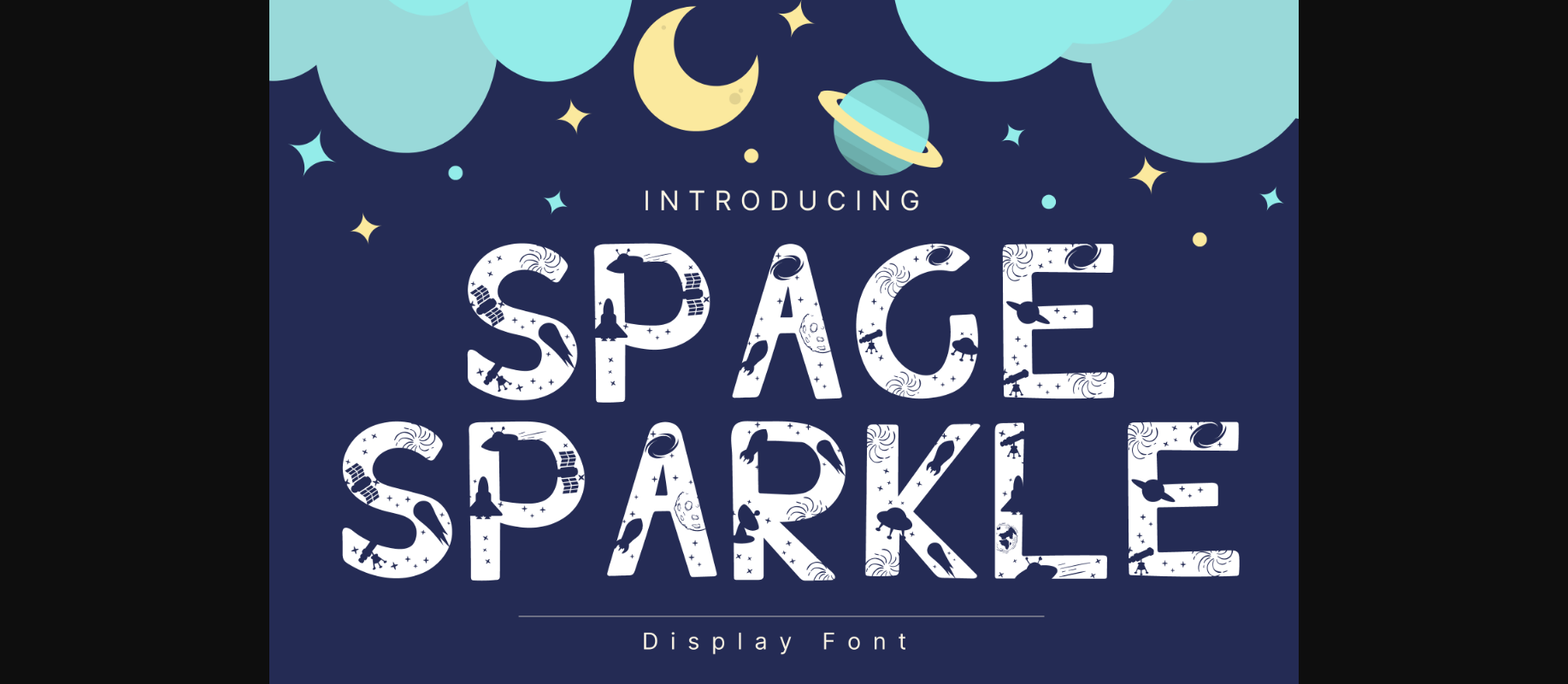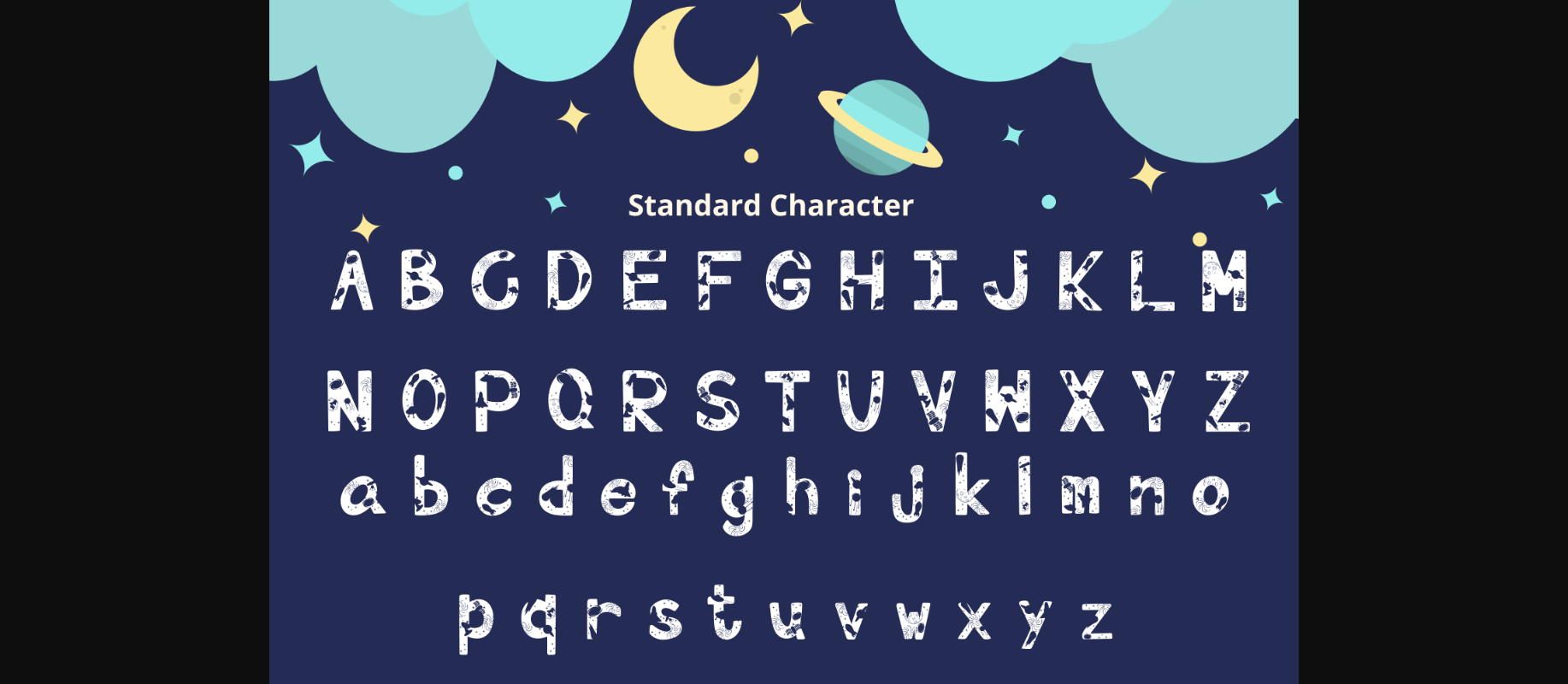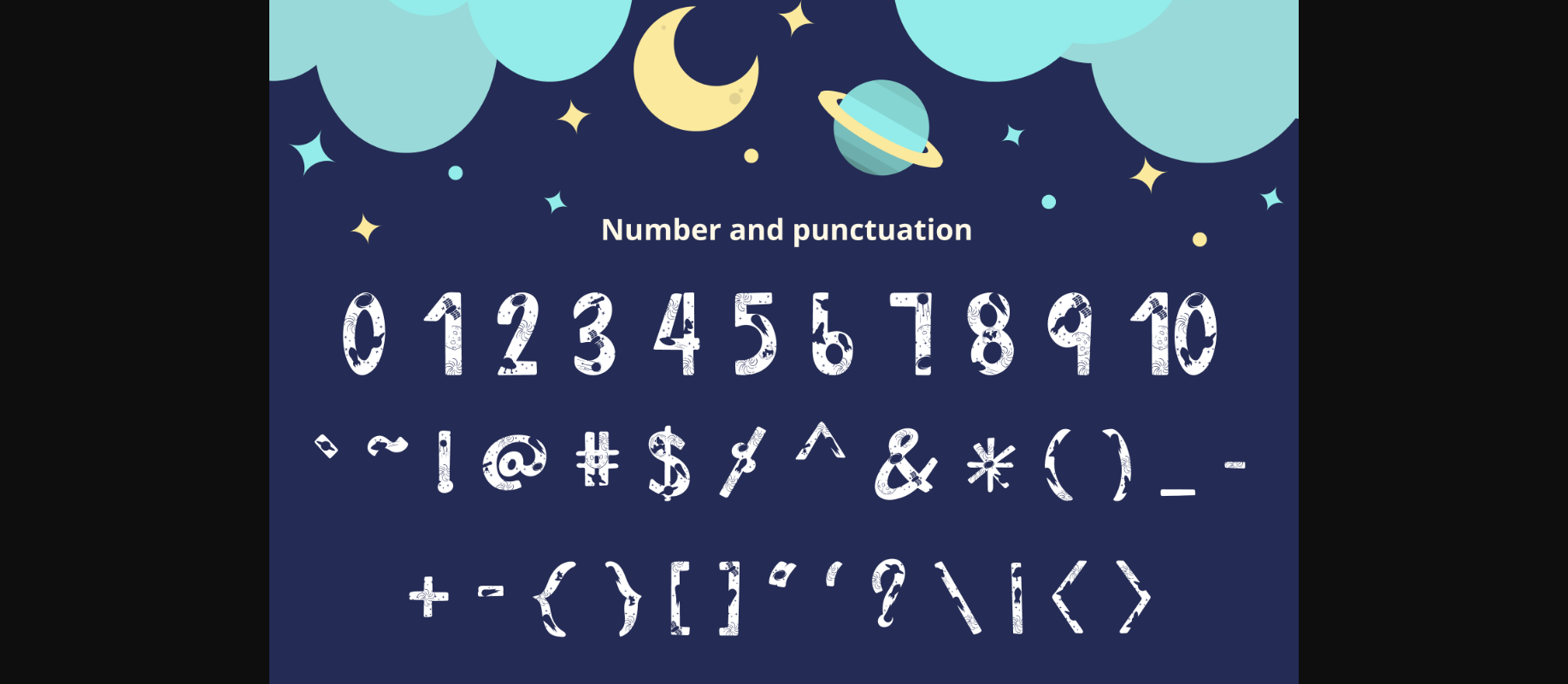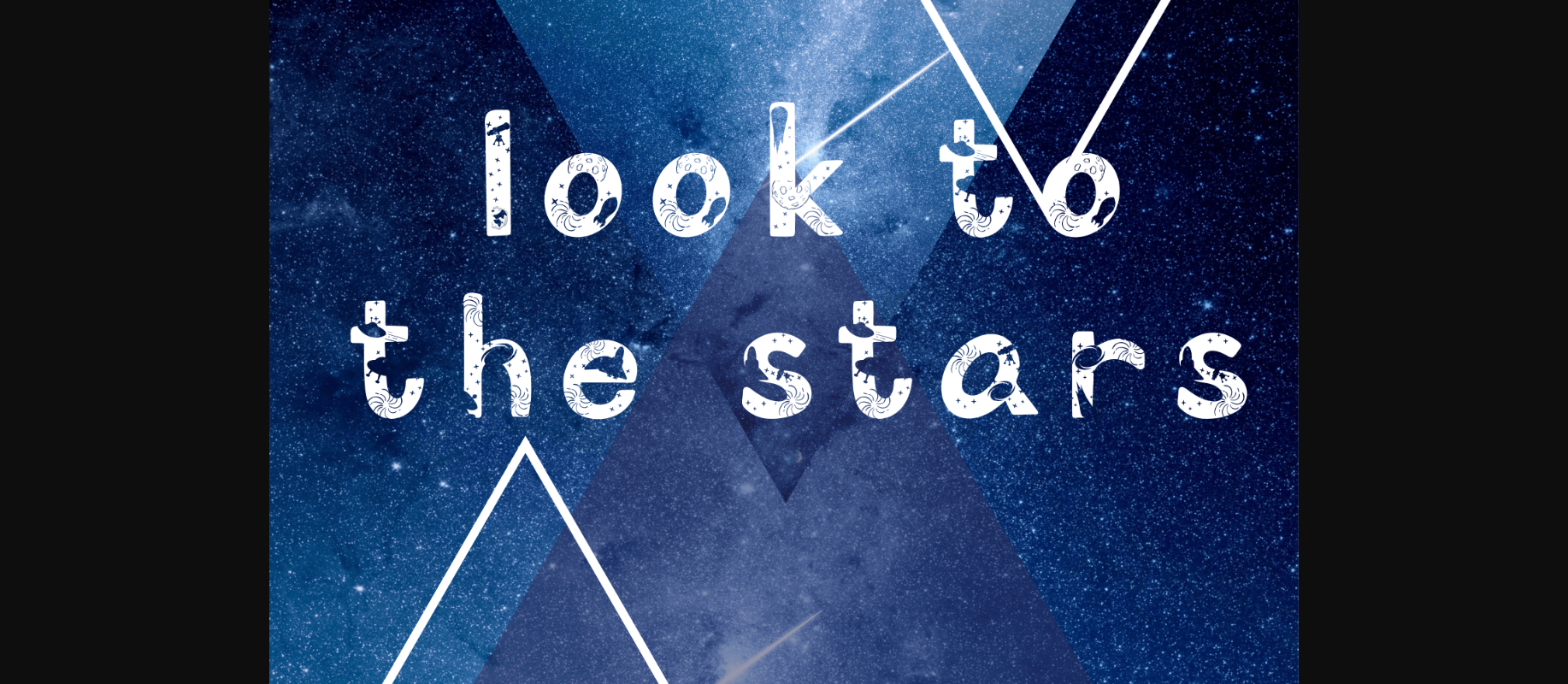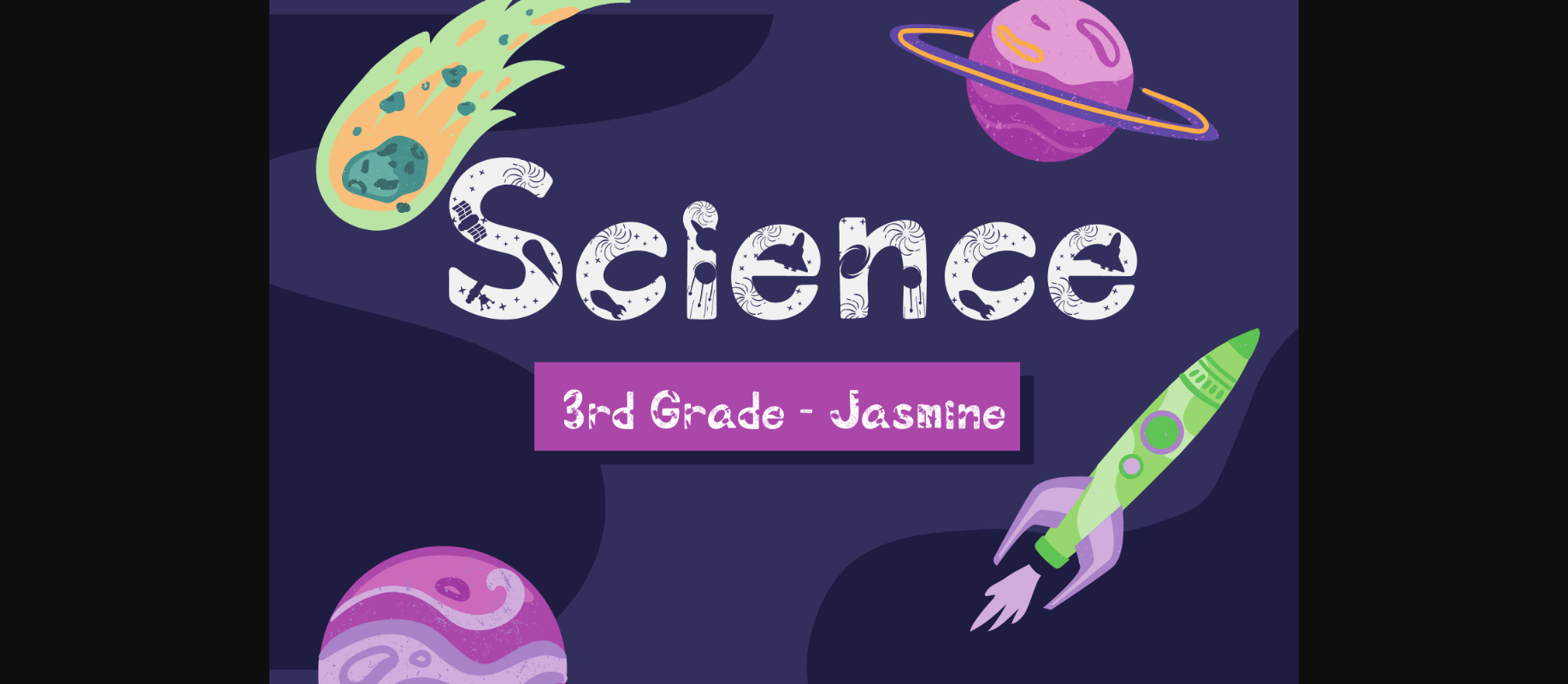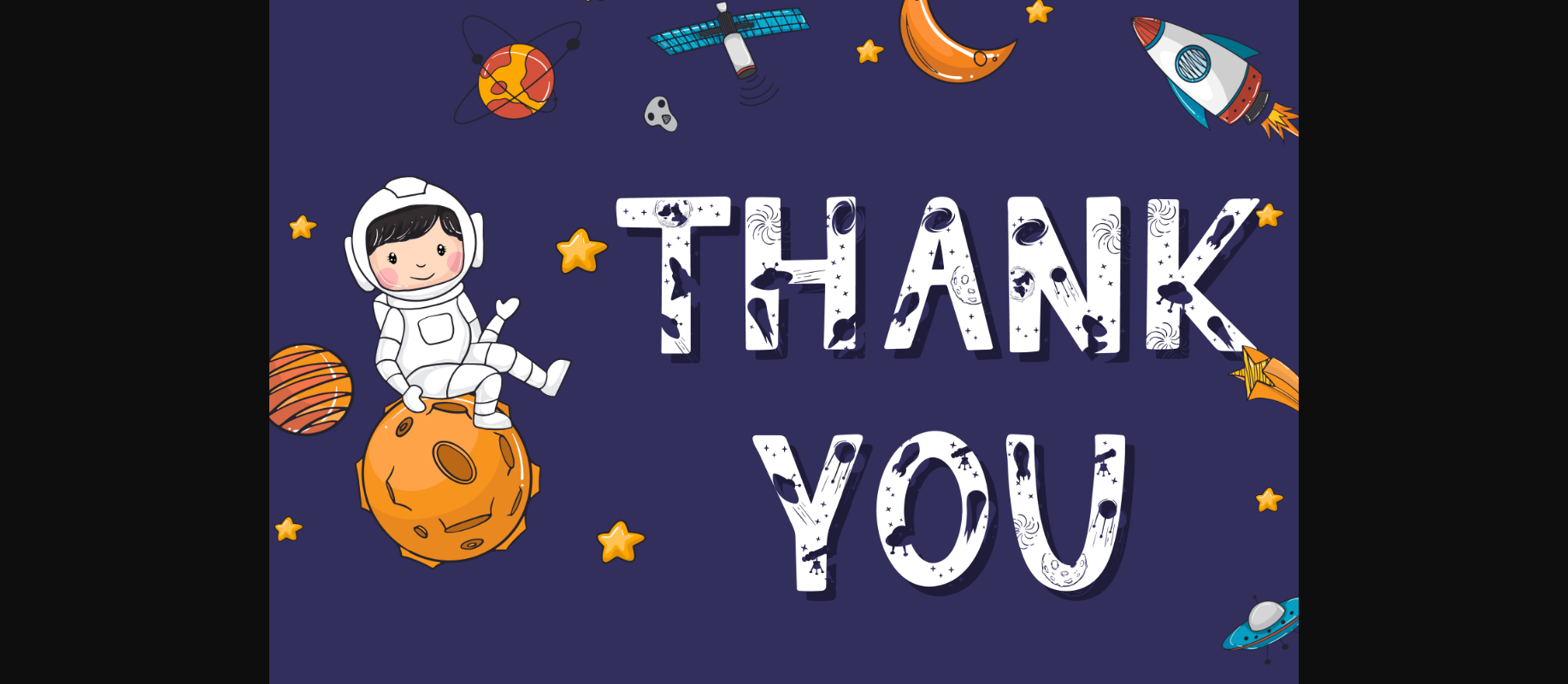
About Space Sparkle Font
Space Sparkle is a whimsical and fun decorative font. It can easily be matched to an incredibly large set of projects, so add it to your creative ideas, and notice how it makes them stand out!